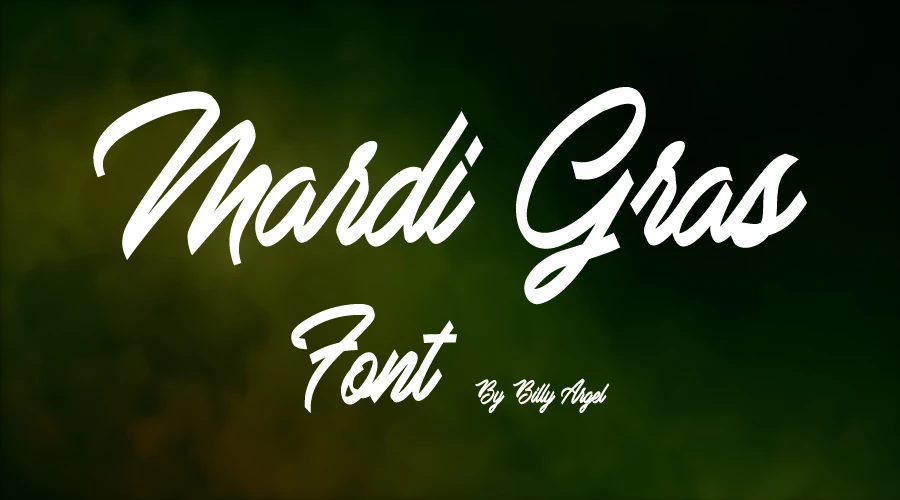
When the streets of New Orleans fill with purple, green, and gold, when masks shimmer and brass bands pulse, Mardi Gras isn’t just a festival—it’s a sensory explosion. And in the digital age, that spirit extends to typography. The Mardi Gras font isn’t a single design, but a vibrant genre of lettering that captures the playful, ornate, and slightly chaotic energy of Carnival. From swirling serifs to jester-like flourishes, these fonts let designers sprinkle a little Fat Tuesday magic onto posters, invitations, branding, and social graphics.
| OriginalLet’s explore six distinct interpretations of the Mardi Gras aesthetic, each crafted by different designers to evoke the joy, mystery, and revelry of the season.
1. Mardi Gras by Billy Argel Fonts
Style: Romantic, Hand-drawn Elegance
Billy Argel is known for fonts that feel deeply human—like ink spilled from a passionate pen. His Mardi Gras leans into flowing script with dramatic swashes and irregular baseline movement. Letters twist like ribbons in a parade, with a touch of Victorian flourish meets Bourbon Street whimsy. Perfect for vintage-style Mardi Gras posters or elegant masquerade invitations, this font balances chaos with grace, embodying the “laissez les bons temps rouler” (let the good times roll) ethos in every curve.
Best For: Event branding, luxury Carnival-themed designs, lyrical quotes.
2. Mardi Gras by Scratchones
Style: Raw, Grungy, Streetwise Carnival
If Mardi Gras had a gritty, back-alley cousin, this would be it. Scratchones’ Mardi Gras embraces imperfection—rough edges, ink splatters, and uneven letterforms mimic hand-painted signs weathered by rain and revelry. It’s less bead necklace, more peeling poster on a French Quarter brick wall. The texture screams authenticity, making it ideal for designs that want to feel spontaneous, underground, or nostalgically analog.
Best For: Indie event flyers, street-art-inspired campaigns, retro poster collages.
3. MardiGras Regular by MIKE (Published by ALLTYPE)
Style: Bold, Festive, and Readable
This is Mardi Gras for the masses—clear, celebratory, and highly functional. With thick strokes, rounded terminals, and a balanced rhythm, MardiGras Regular shouts “PAR-TAY!” without sacrificing legibility. The uppercase letters flare like flambeaux torches, while subtle inline details hint at mask filigree. Published by ALLTYPE, it’s optimized for both print and screen, making it a go-to for parade float graphics, restaurant menus, or community festival branding.
Best For: Practical yet festive designs, large signage, family-friendly Mardi Gras promotions.
4. Mardi Gras Font by Font Craft Studio
Style: Ornate, Decorative, and Highly Thematic
Font Craft specializes in thematic display typefaces, and their Mardi Gras leans hard into visual symbolism. Expect fleur-de-lis terminals, jester cap flourishes, and beads disguised as punctuation. Letters twist like doubloons tossed from floats, and every character feels costumed. It’s unapologetically maximalist—ideal when you want the typography itself to be part of the spectacle.
Best For: Theatrical posters, themed party materials, over-the-top social media graphics.
5. Mardi Gras Font by BA Graphics
Style: Classic Carnival with Clean Structure
BA Graphics offers a refined take: bold, condensed letterforms with sharp serifs softened by festive curves. Think of it as Mardi Gras tailored in a purple suit jacket—structured enough for professional use, yet dripping in festive color potential. The design integrates subtle references: the crossbar of a ‘t’ might curl like a mask ribbon; the ‘&’ could resemble a charm bracelet link. It’s versatile, scalable, and full of restrained joy.
Best For: Restaurant logos, merchandise (t-shirts, mugs), clean event branding.
6. KR Mardi Gras by Kats Fun Font
Style: Playful, Whimsical, Kid-Friendly Carnival
Kats Fun Font lives up to its name with KR Mardi Gras—a bubbly, rounded typeface dripping with cheer. Letters bounce like thrown beads, with exaggerated terminals and a cartoonish warmth. The lowercase ‘g’ might sport a spiraling tail like a doubloon; ‘o’s glow like lanterns. This font leans into the fun of Fat Tuesday, making it perfect for children’s events, family parades, or any design aiming for pure, uncynical delight.
Best For: School projects, family festival ads, social media reels, whimsical branding.
Why Mardi Gras Fonts Matter?
These typefaces do more than spell words—they perform them. Like a Zydeco rhythm or a Mardi Gras Indian chant, they carry cultural weight through form. Using a Mardi Gras font isn’t just design; it’s participation. It signals: “We’re here to celebrate, not just communicate.”
Whether you’re designing a Krewe’s invitation, a jazz club’s seasonal menu, or a social post shouting “Throw me somethin’, Mister!”, the right font transports your audience straight to the heart of the festivities.